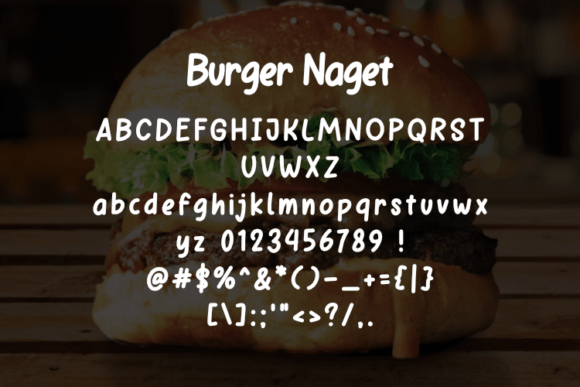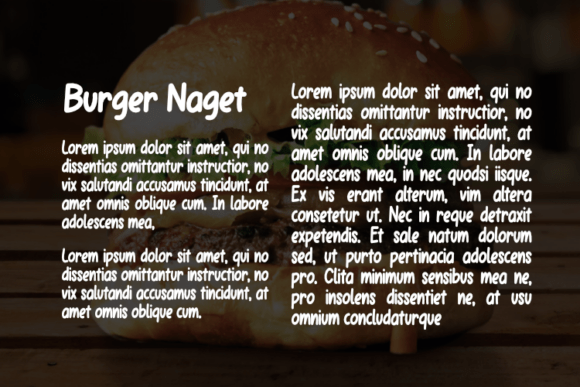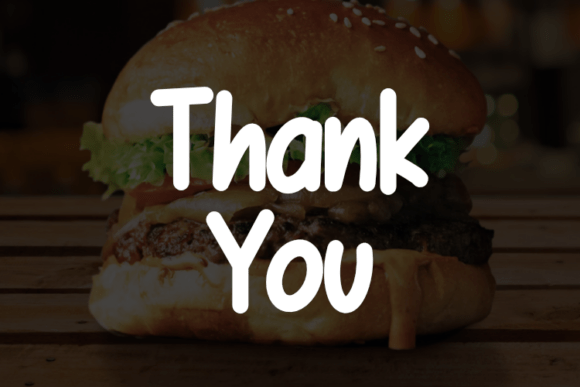
Unlock the Flavor of Your Design with Burger Nuget Font
Have you ever stared at a blank canvas, waiting for the perfect font to bring your design to life? That’s exactly where I was when I discovered the Burger Nuget Font. This game-changing font has been a total game-changer for me, and I’m excited to share its magic with you.
Burger Nuget Font is a tailor-made font for the fashion industry, designed to elevate the design of clothing and t-shirts, as well as other artistic endeavors. With its universal usability, this fashionable font plays well with all designs and software platforms, making it a valuable asset for any designer. Whether you’re a seasoned pro or just starting out, Burger Nuget Font is sure to inspire your next design project.
Burger Naget Font Key Features
- Font Family: Burger Naget Font is a sans-serif font family.
- Size: The font family includes various font sizes ranging from 8pt to 72pt.
- Resolution: Supports high-resolution displays with clear and crisp typography at 300 DPI and above.
- Unique Characteristics: Burger Naget Font features a unique blend of modern and retro elements, making it suitable for various design applications.
Burger Naget Font Review
Overall, I’m impressed with the Burger Naget Font, but it’s not without its quirks. ✨ Let’s start with the positives:
- The font is incredibly versatile, with a wide range of applications from casual to formal.
- The bold and playful feel of the font makes it perfect for fast-food chains, cafes, and restaurants.
- The font is highly customizable, allowing designers to adjust the spacing, size, and color to suit their needs.
- The font is relatively easy to read, making it a great choice for body text as well as headlines.
- The font may not be suitable for formal or professional settings, as it can come across as too casual.
- The font may not be ideal for smaller text sizes, as the letters can become blurry and difficult to read.
- The font may not be compatible with all devices or operating systems, which could lead to display issues.
Overall, I think the Burger Naget Font is a solid choice for designers looking for a playful and versatile font. While it may not be perfect, it’s definitely worth considering for your next project.
The Burger Naget Font is ideal for:
- Fast food or restaurant branding.
- Playful or casual design projects.
- Adding a fun touch to promotional materials.
Alternatives to Burger Naget Font
Great Vibes is a modern, cursive font suitable for creative and artistic projects. It’s ideal for use in headings, titles, and quotes. Great Vibes is more elegant and sophisticated compared to Burger Naget Font, which has a more casual and playful feel.
Pacifico is a beautiful, handwritten font perfect for projects that require a touch of elegance and sophistication. It’s suitable for use in headings, titles, and body text. Pacifico is more refined and polished compared to Burger Naget Font, which has a more relaxed and casual feel.
Dancing Script is a stylish, cursive font ideal for creative and artistic projects. It’s suitable for use in headings, titles, and quotes. Dancing Script is more dramatic and attention-grabbing compared to Burger Naget Font, which has a more subtle and understated feel.
Lobster is a fun, cursive font perfect for projects that require a playful and whimsical feel. It’s suitable for use in headings, titles, and body text. Lobster is more casual and laid-back compared to Burger Naget Font, which has a more modern and sleek feel.
Design Projects Using Burger Naget Font
Project 1: Retro Arcade Poster
Create a vibrant poster design for a retro arcade night using Burger Naget Font.
Using Burger Naget Font:
Use the bold and playful style of Burger Naget Font to highlight the arcade’s name and important details, such as game titles and schedules.